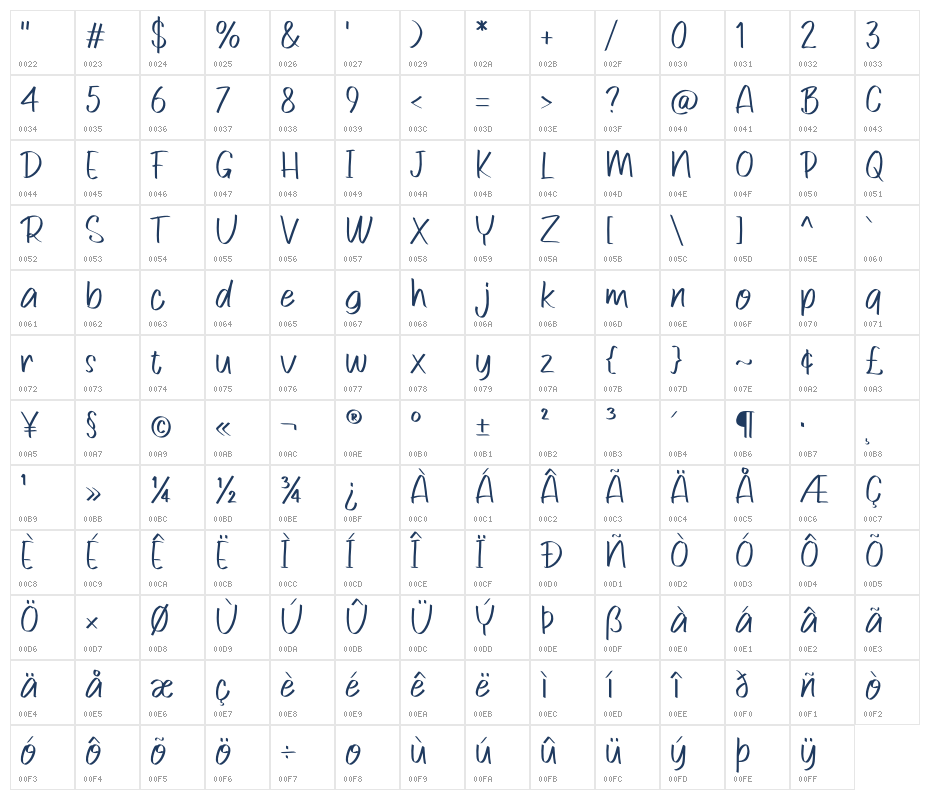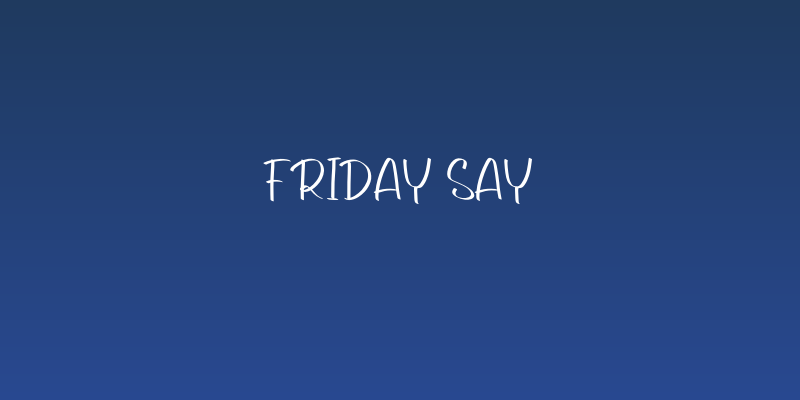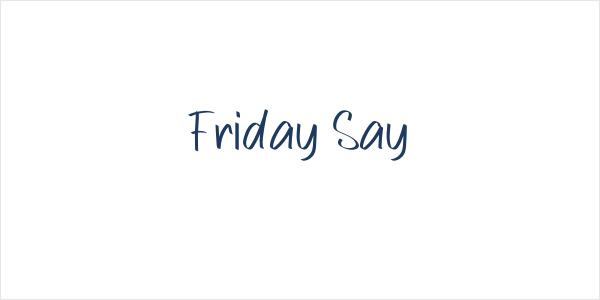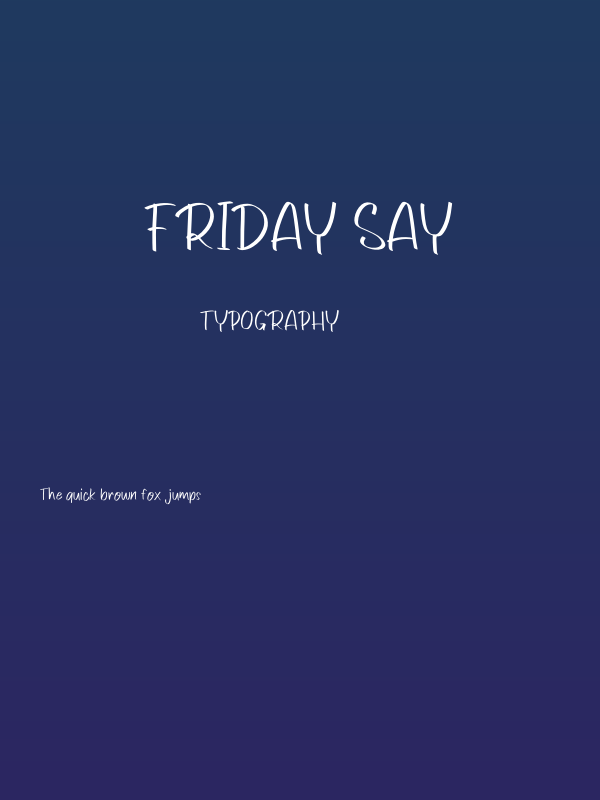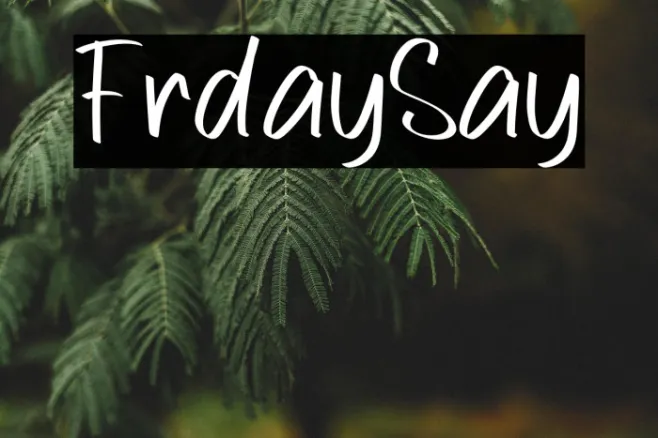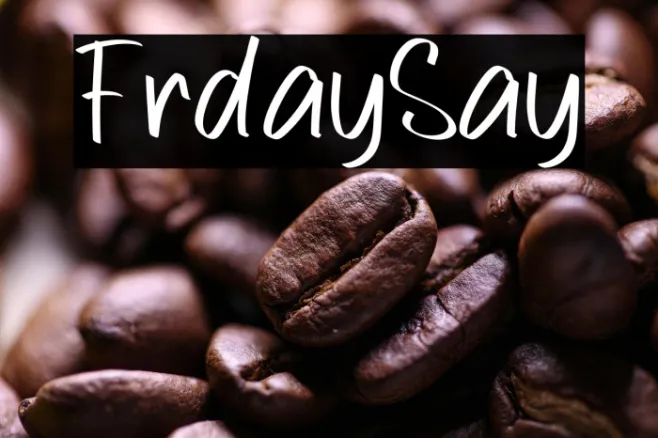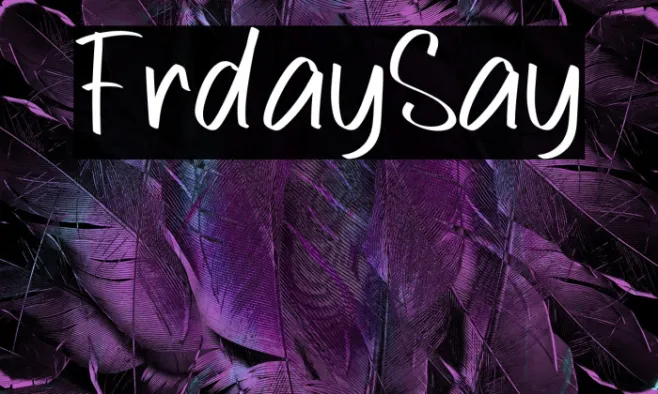
Friday Say Font
Friday Say Description
A casual, handwritten script font with a playful and informal style, featuring slightly irregular strokes and a friendly appearance.
| Overall Style | Casual, Playful, Friendly |
| Use Case | Headlines, Body text, Logos, Invitations, Greeting cards |